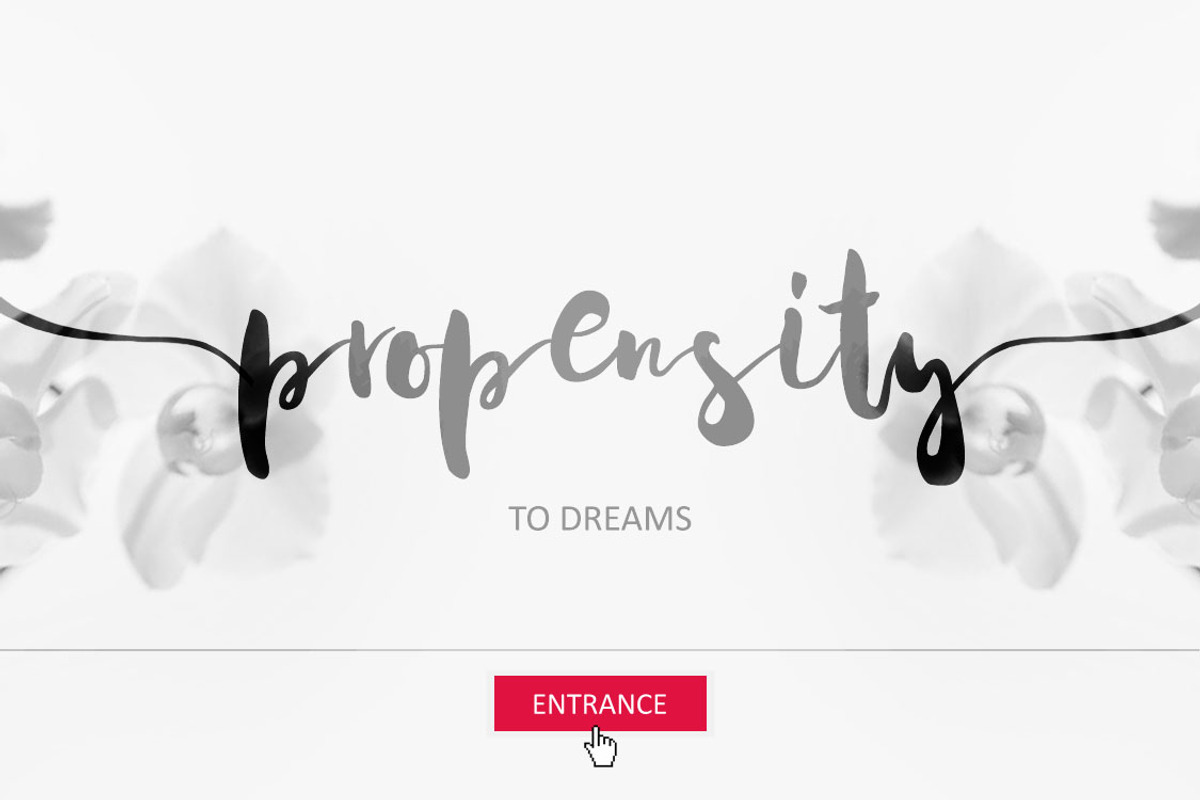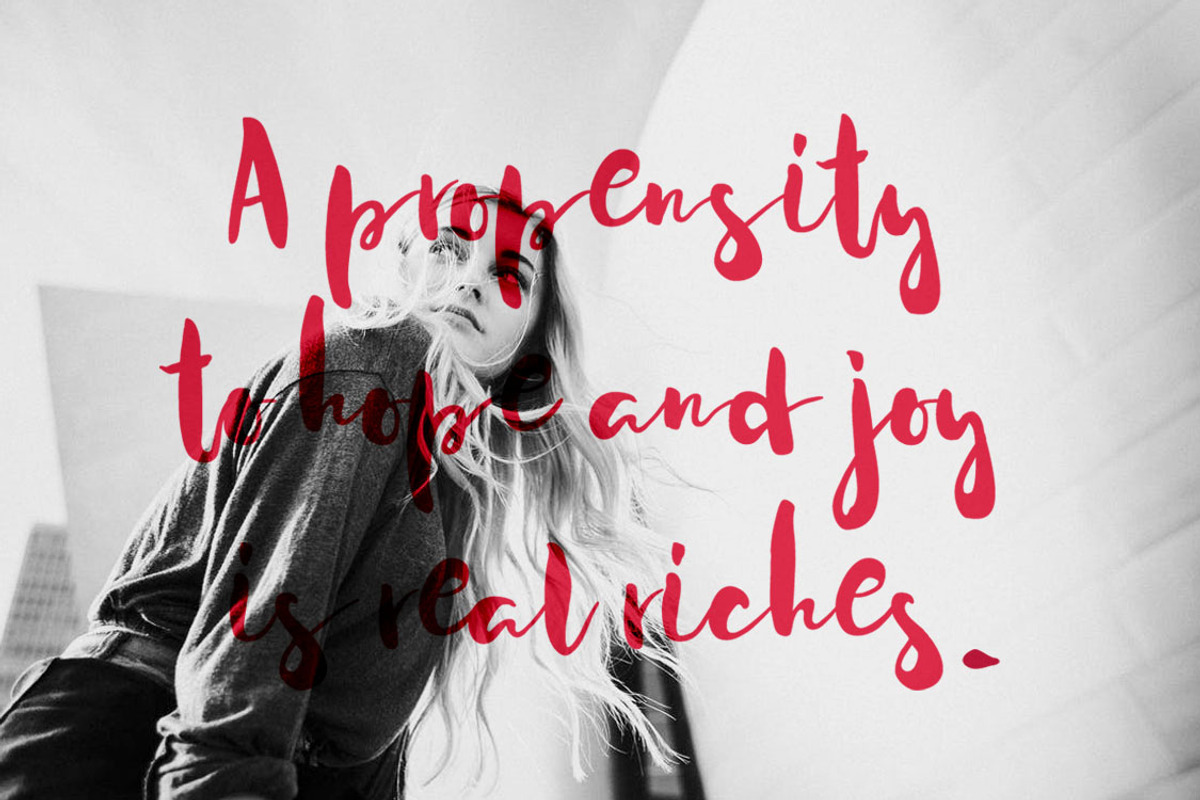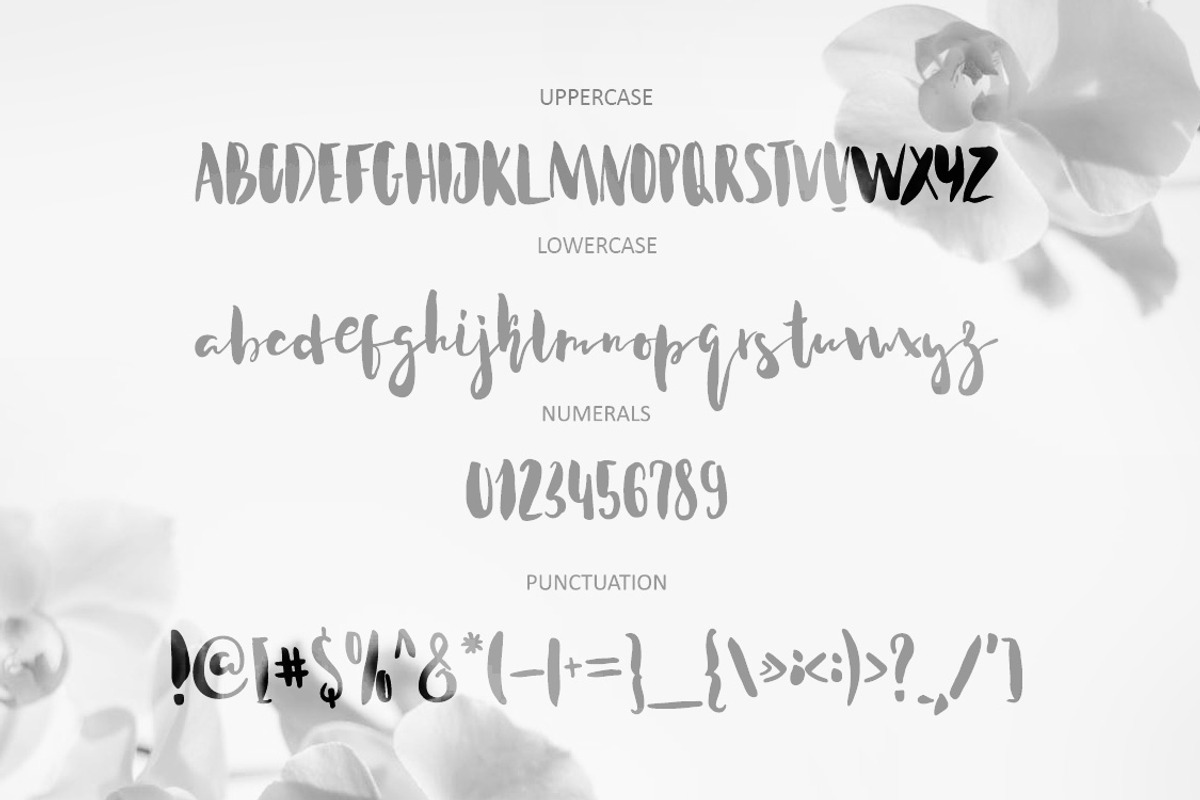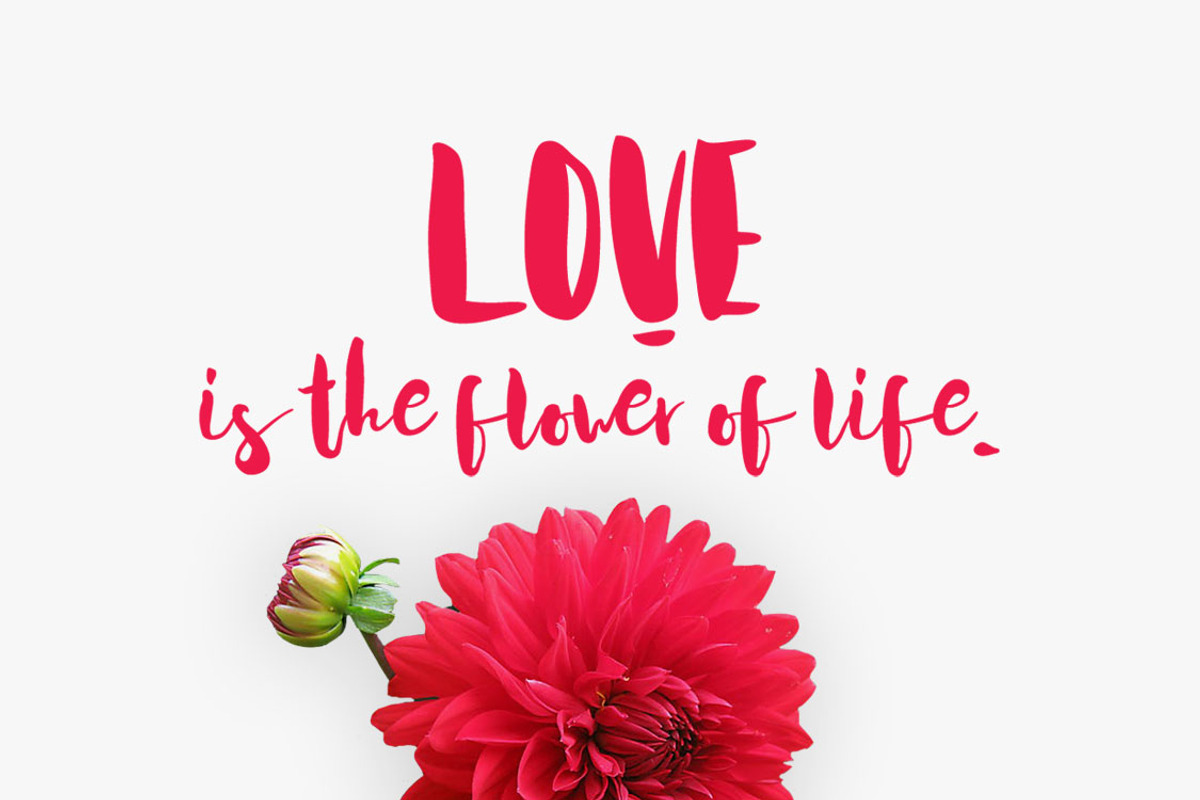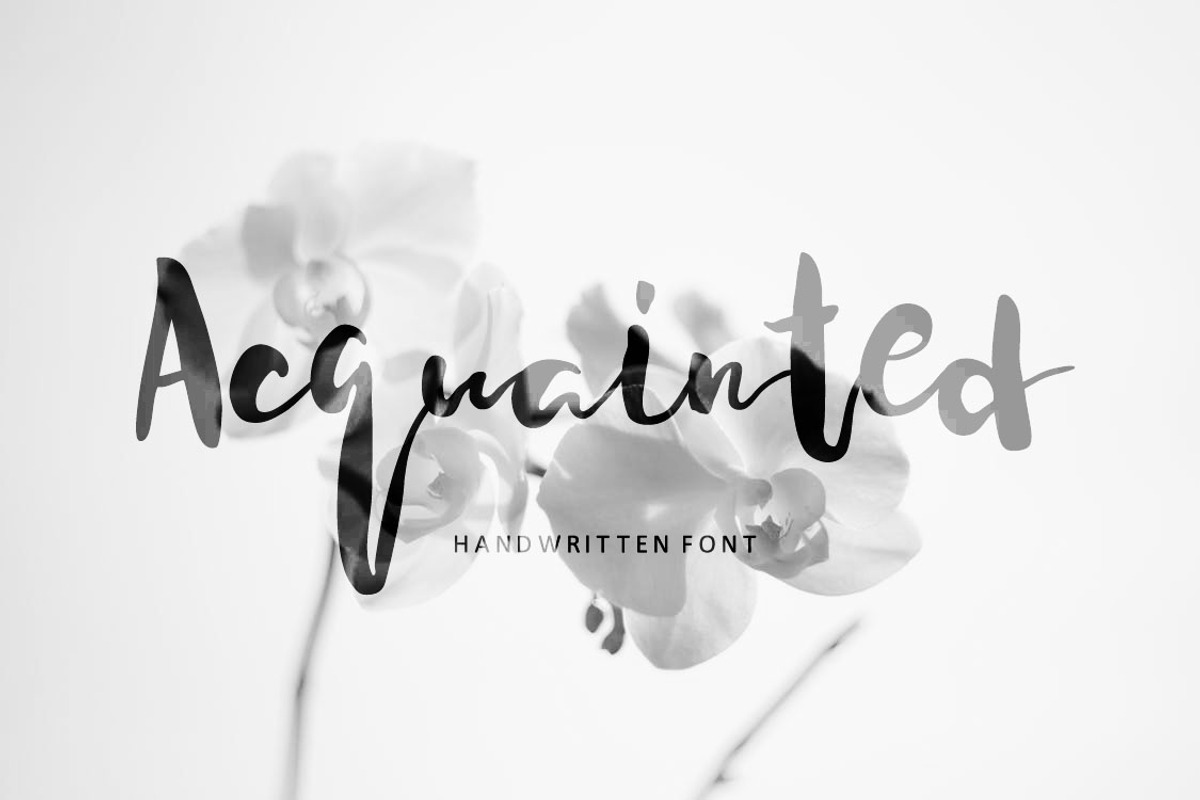
Acquainted Script Brush Font
Acquainted Script Brush Font by Wewhitelist is a font selected for branding, posters, packaging, typography.
Why Acquainted Script Brush Font is worth a look
Acquainted Script Brush Font by Wewhitelist fits naturally into Branding, posters, packaging, typography.